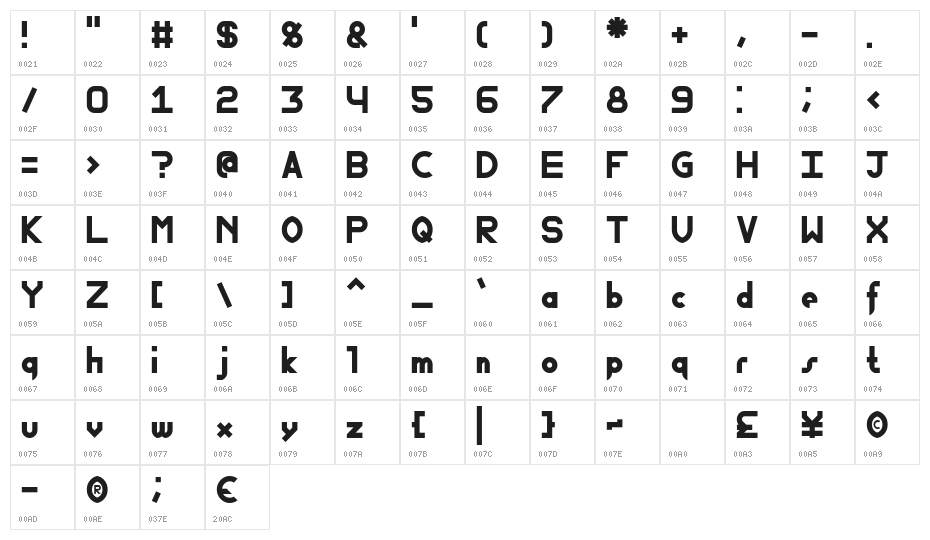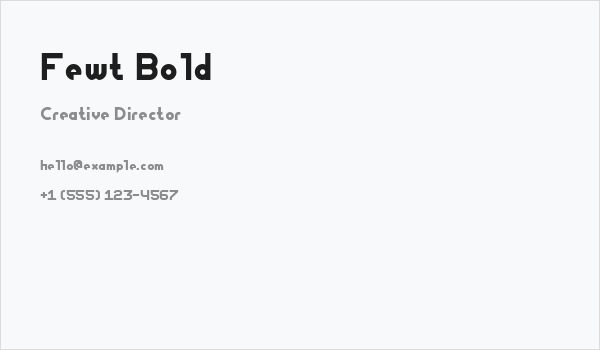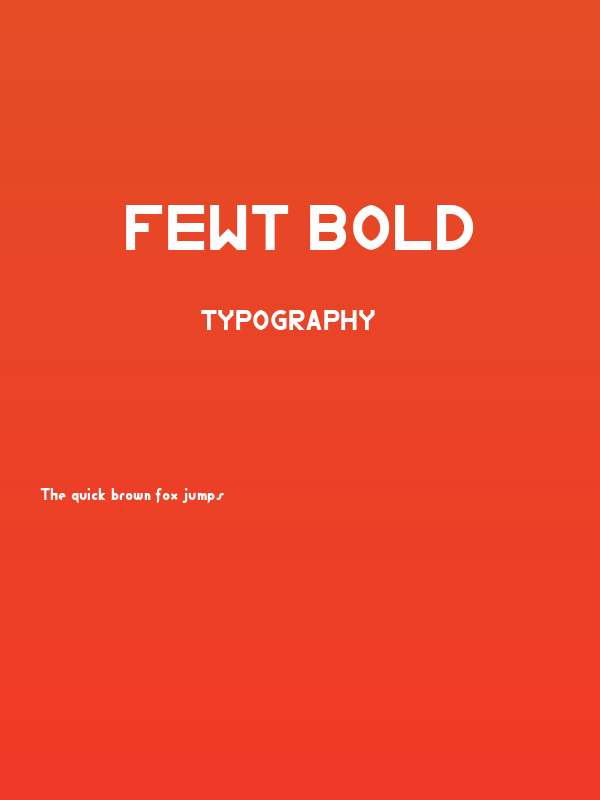
Fewt Bold Font
Fewt Bold Description
This font features a bold and geometric style with strong, angular lines and a modern aesthetic. The uppercase letters are uniform in height, with a consistent stroke width that gives them a solid and impactful appearance. The lowercase letters maintain the geometric theme, with unique shapes that add a distinctive character to the text. Numbers are similarly bold and clear, making them easily readable. Special characters are designed to match the overall style, ensuring a cohesive look across all text elements. The font's design is both functional and visually striking, making it suitable for a variety of uses.